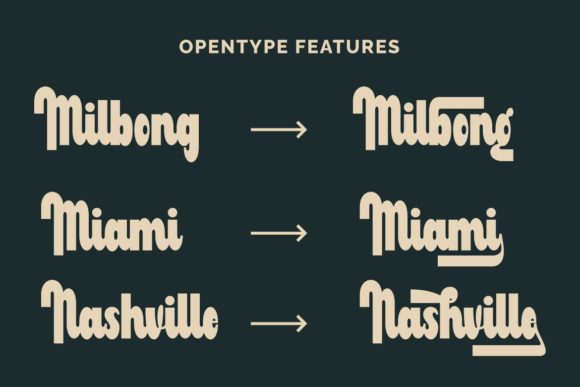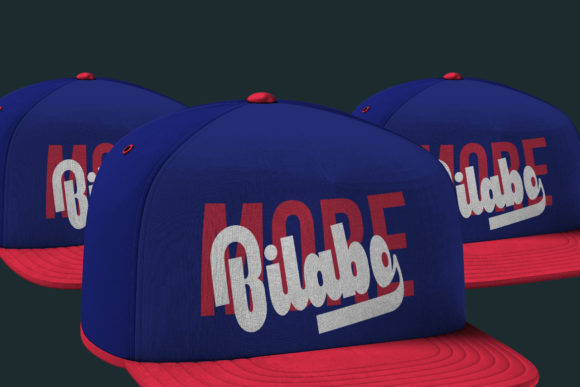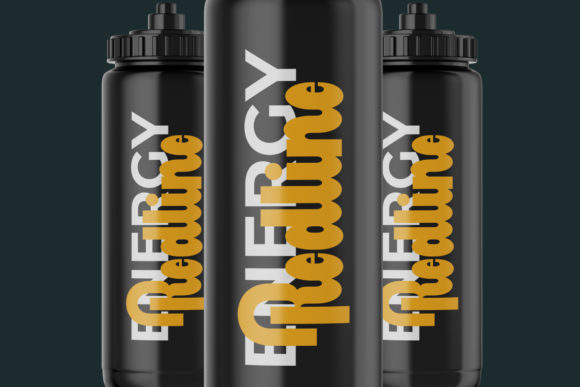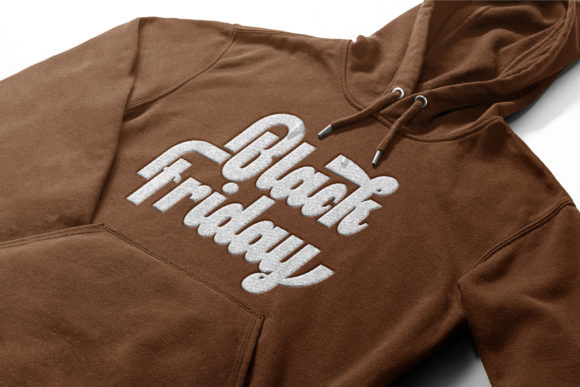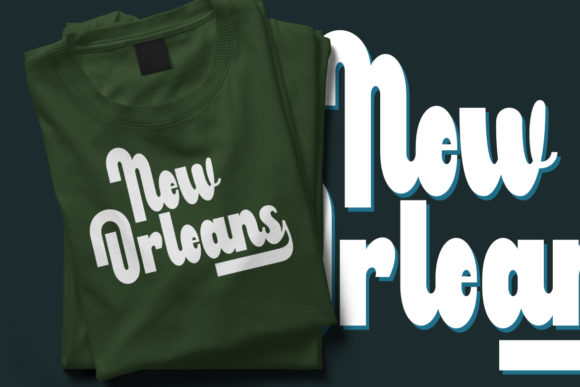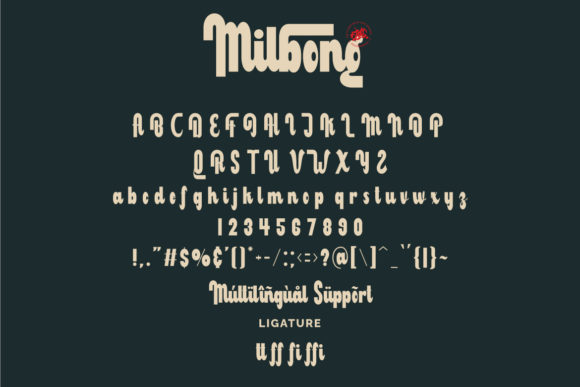
Introduction to Milbong Font Font
Fonts play a crucial role in design, and the Milbong Font font is a typeface that brings both character and versatility to any project. Whether you’re working on a branding project, a website, or a print design, the Milbong Font font offers a unique style that can elevate your work.
Milbong is a bold and chunky lettered display font.
It is suitable for any branding, product packaging, invitation, quote, t-shirt, label, poster, logo that you desire to create .
Key Features of Milbong Font Font
Why Choose Milbong Font Font?
The Milbong Font font is more than just a typeface – it’s a design tool that helps you communicate your message with style and clarity. Its unique character set and versatile design make it suitable for a wide range of applications, from elegant invitations to bold headlines.
With its carefully crafted letterforms and balanced proportions, the Milbong Font font ensures readability and visual appeal across all mediums.
What makes Milbong Font font special?
The Milbong Font font stands out with its unique design, exceptional readability, and versatility across various design applications.